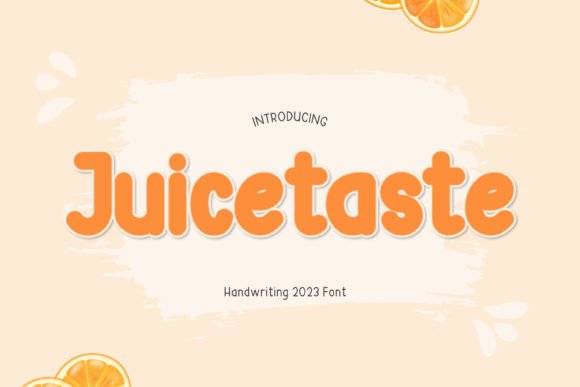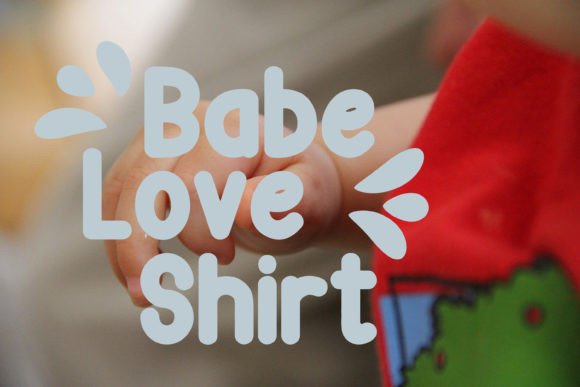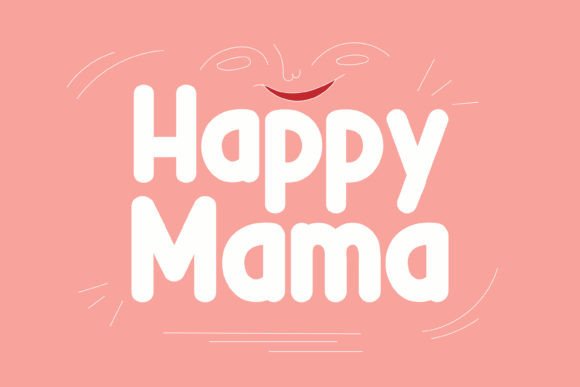
Juicetaste Font: A Quirky Handwritten Font for Playful DIY Designs!
About the Juicetaste Font
Get ready to be inspired by Juicetaste Font, a fresh and dynamic typeface for modern creators. Juicetaste is a fun and quirky handwritten font. This font is the best because you can use any ideas and make them look better. Use this font for your designs and explore its endless possibilities.
Juicetaste’s playful, handwritten style is ideal for projects requiring a touch of whimsy and personality. It works exceptionally well in headlines, short taglines, logos for food brands or children’s products, and social media graphics. Avoid using it for large blocks of text or body copy; its informal nature makes it less legible in extended passages. Consider using it sparingly as an accent.
Pair Juicetaste with a clean sans-serif like Open Sans for a balanced contrast, or a classic serif like Garamond for a sophisticated feel. For a more playful look, a geometric sans-serif like Futura would also create a nice juxtaposition.
The font’s overall personality is undeniably cheerful and approachable, making it a strong choice for brands aiming for a friendly, approachable, and slightly unconventional image.
Juicetaste Font Usage Examples
Juicetaste Font Example